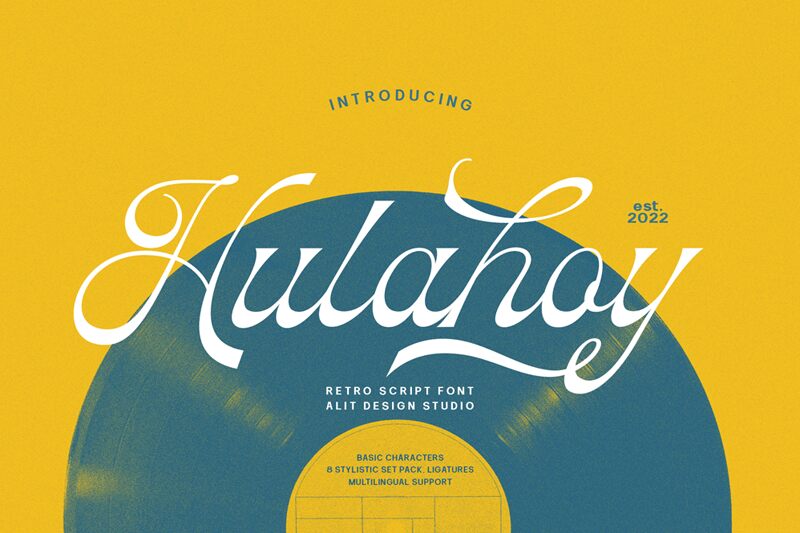
Hulahoy Regular
Hulahoy font by Alit Design beautifully captures the charm of retro calligraphy. With its elegance and fluid cursive style, this modern font exudes a formal and sophisticated mood, making it ideal for projects that require graceful curves.
This free handwritten font is perfect for branding, invitations, greeting cards, posters, packaging design, book covers, magazines, social media graphics, banners, advertisements, and websites.